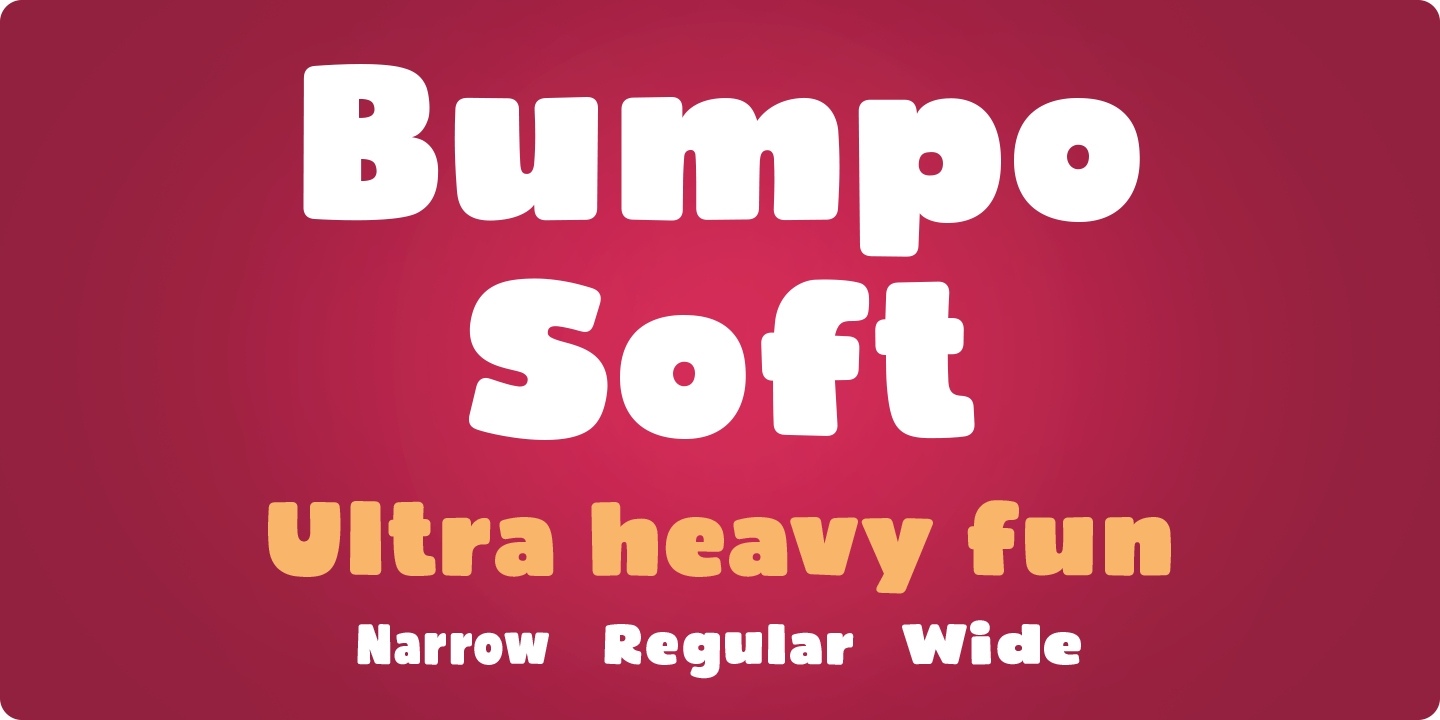
Bumpo Soft Font
Bumpo Soft Font is perfect for children's toy company branding, playful nursery school materials, fun family restaurant signage, kid-friendly app interfaces, cheerful pediatric clinic graphics, whimsical children's book illustrations, bouncy playground equipment logos, joyful daycare center communications, colorful children's clothing labels, and delightful family entertainment venue advertising. This endearing typeface excels in applications where gentle playfulness, child-safe comfort, and nurturing warmth are fundamental brand characteristics.
What makes Bumpo Soft Font exciting is its wonderfully huggable character design that captures the soft comfort and gentle playfulness children need through rounded letterforms that feel as safe and welcoming as a favorite stuffed animal. The font features pillowy character construction with generous curves and cushioned details that immediately convey safety, comfort, and the kind of gentle care that makes children feel secure and happy. Its nurturing personality makes it perfect for brands that understand the importance of creating environments where children can explore, learn, and grow with confidence and joy.
The Bumpo Soft Font family typically includes Regular and Bold weights, often accompanied by extra-soft variations with enhanced rounded characteristics and gentle ligatures that maintain the comforting, child-friendly aesthetic. Many versions include playful symbols designed specifically for children, including soft shapes, friendly creatures, and gentle decorative elements that enhance the safe, nurturing atmosphere. Some collections include outline variations and soft shadow effects that amplify the cushioned, protective quality for maximum child comfort.
Whether you're developing brand identities for child-focused businesses, creating educational materials for young learners, or designing environments that prioritize child safety and emotional comfort, Bumpo Soft Font Free Download provides the authentic gentle character that resonates with both children and parents who value emotional safety and nurturing care. Its comforting presence makes it ideal for organizations dedicated to creating spaces where children feel protected, valued, and free to express themselves naturally. The font's ability to convey both playful fun and protective safety makes it particularly valuable for pediatric healthcare providers, children's educational institutions, and family-focused businesses seeking to create environments where children thrive emotionally and parents feel confident their little ones are receiving the gentle, caring attention they deserve.